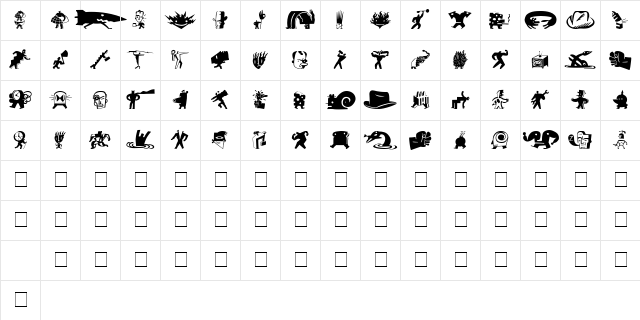
Complete BigCheeseDark Medium glyph index. Displaying only characters natively supported by BigCheeseDark Medium font.
BigCheeseDark is a composed and adaptable typeface that performs quietly and consistently across a wide range of design contexts.